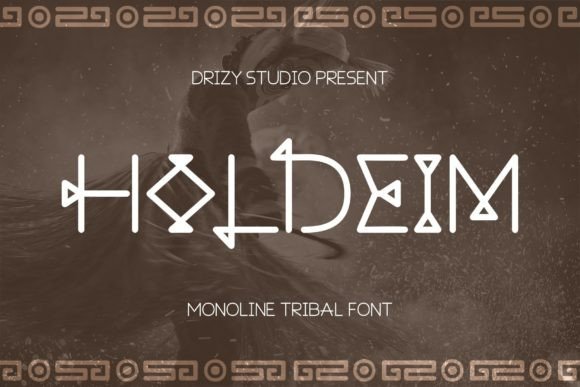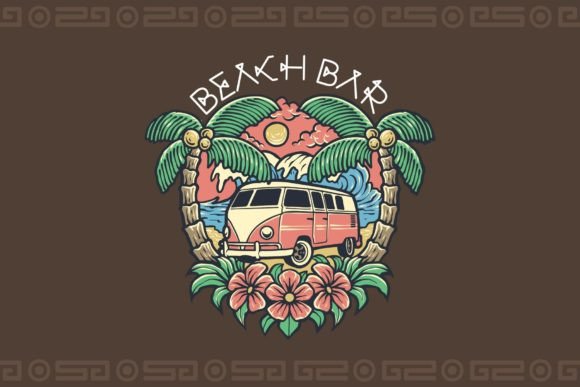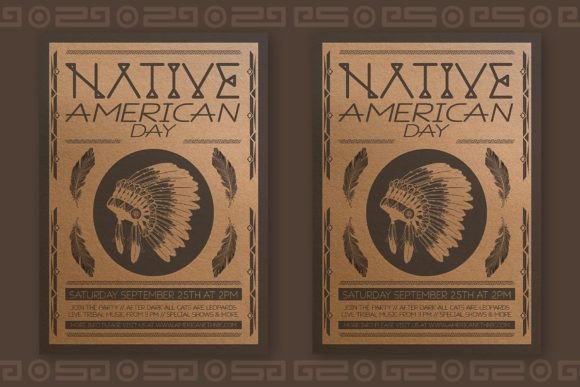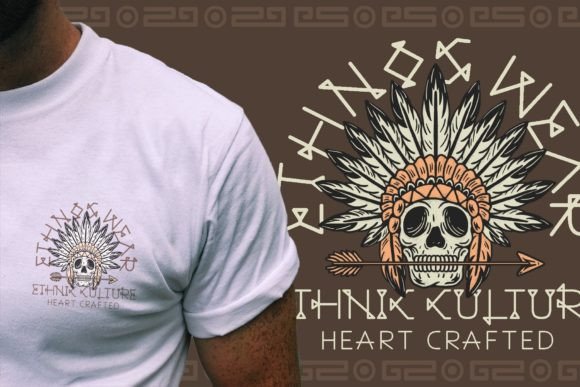
Holdeim Font: A Unique Tribal Display Font for Creative DIY Projects
About the Holdeim Font
The wait is over! The incredible Holdeim Font is now available for your design toolkit. Holdeim is a unique and interesting display font. Its tribal character makes it suitable for a large variety of special projects that need an extra ethnic touch.
Holdeim excels in headline applications, particularly for projects emphasizing cultural heritage or adventurous themes. It’s ideal for posters, branding for travel agencies or ethnic restaurants, and packaging designs needing a bold, eye-catching element. However, its intricate details make it unsuitable for body text or UI elements where readability is paramount. Long blocks of text set in Holdeim would be difficult to decipher.
Its strong, tribal personality pairs well with clean sans-serif fonts like Futura or Open Sans for contrast and readability in multi-font designs. For a more sophisticated feel, a classic serif like Garamond or a geometric sans-serif like Montserrat would provide a refined counterpoint. Avoid pairing it with other highly decorative fonts, as this can create visual clutter.
Holdeim projects a bold and powerful yet approachable feel. The ethnic influence is strong, but its overall aesthetic remains versatile enough for diverse projects needing a touch of distinctive character.